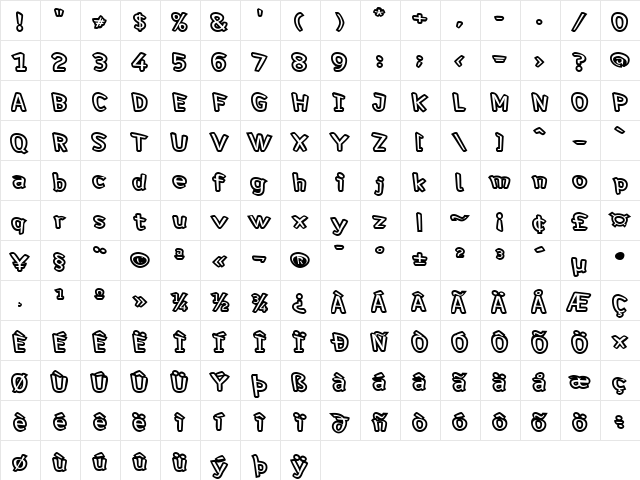
BluePx Medium
Design Context for BluePx Typeface
BluePx is a composed and adaptable typeface that performs quietly and consistently across a wide range of design contexts.